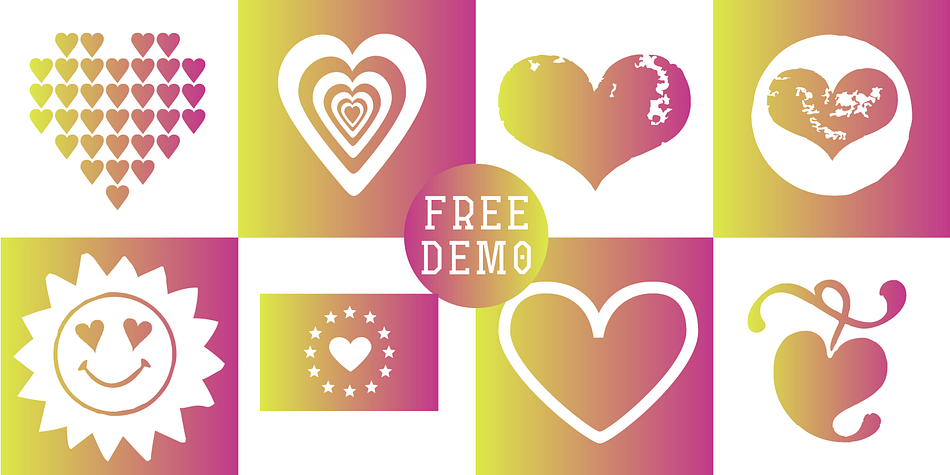
Hearts Love Smile
Designed by Manuel Viergutz, Hearts Love Smile is a dingbat font family. This typeface has two styles and was published by Typo Graphic Design.
The typeface Hearts Love Smile (All We Need Is LOVE) is designed in 2018–2021 for the font foundry Typo Graphic Design by Manuel Viergutz. A font-collection from rough hand-printed old wood letters, rubber-stamps and plastic stamps till clean vectors, photos …
302 glyphs of LOVE. Decorative extras like icons, arrows, dingbats, emojis, symbols, decorative ligatures (type the word LOVE for ♥ or SMILE for ☻ as OpenType-Feature dlig).
For use in logos, magazines, posters, advertisement and packaging plus as webfont for decorative headlines. The font works best for display size.